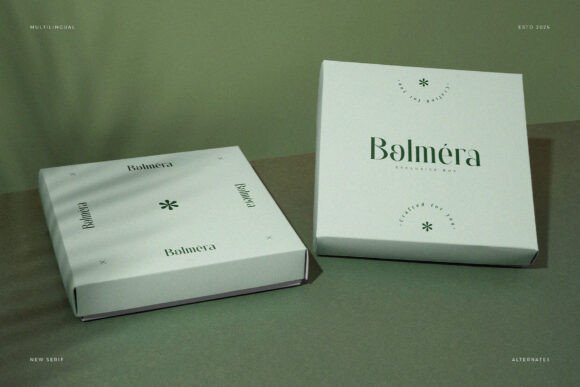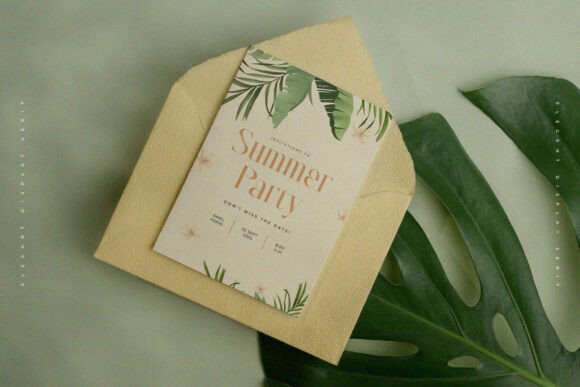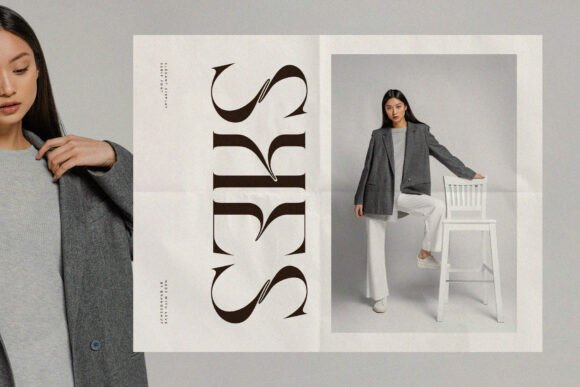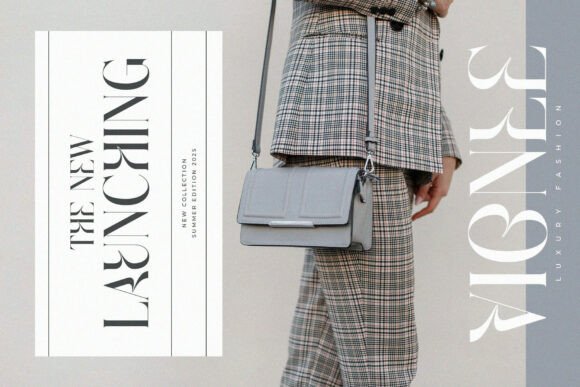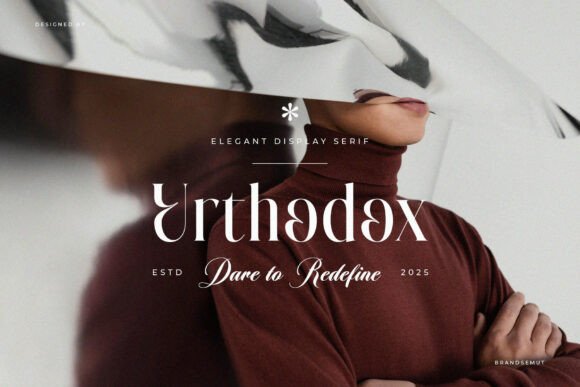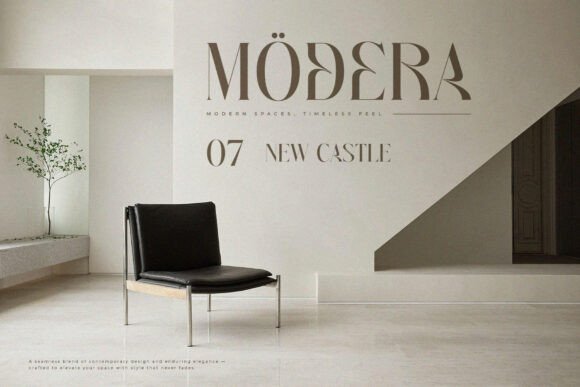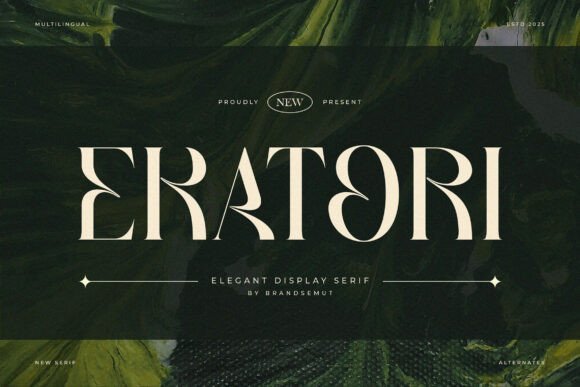
Introducing Ekatori: The Elegant Modern Display Serif Font
Are you a designer or crafter looking for a font that exudes luxury, sophistication, and modernity? Look no further than Ekatori, the elegant modern display serif font that is taking the design world by storm. With its unique alternates, luxurious details, and multilingual support, Ekatori is the perfect choice for a wide range of creative projects.
A Font that Combines Tradition and Innovation
Ekatori is a masterful blend of traditional serif font elements with modern twists and innovative features. Its sophisticated curves and classy uppercase-lowercase combination make it stand out in both print and digital projects. Whether you’re working on branding, high-end packaging, logo design, fashion editorials, wedding invitations, or social media graphics, Ekatori is the perfect font to elevate your creative work.
Unique Alternates and Luxurious Details
One of the standout features of Ekatori is its unique letter alternates. These alternates provide a range of options for designers to add variety and interest to their work. The font’s luxurious details, including its elegant serifs and refined lines, make it perfect for projects that require a high level of sophistication. With Ekatori, you can add a touch of luxury to your designs and take them to the next level.
Multilingual Support and Alternate Glyphs
Ekatori is designed to be versatile and accessible, with multilingual support and alternate glyphs that make it easy to use in a wide range of languages and creative projects. Whether you’re working on a project that requires a specific language or character set, Ekatori has got you covered. The font’s PUA encoding ensures that all special characters and decorative elements are easily accessible without additional software.
Ekatori is a font that is specifically designed with designers and crafters in mind. Its elegant and modern design makes it perfect for a wide range of creative projects, from branding and packaging to fashion editorials and social media graphics. With Ekatori, you can add a touch of sophistication and luxury to your designs and take your creative work to the next level.
Key Features of Ekatori
- Elegant modern display serif font with unique alternates
- Luxurious details and sophisticated curves
- Multilingual support and alternate glyphs
- PUA encoding for easy access to special characters and decorative elements
- Perfect for branding, high-end packaging, logo design, fashion editorials, wedding invitations, and social media graphics
Why Choose Ekatori?
There are many reasons why Ekatori is the perfect choice for designers and crafters. Here are just a few:
- Unique and elegant design: Ekatori’s unique alternates and luxurious details make it stand out from other fonts.
- Versatility: Ekatori is perfect for a wide range of creative projects, from branding and packaging to fashion editorials and social media graphics.
- Multilingual support: Ekatori’s multilingual support makes it easy to use in a wide range of languages and creative projects.
- Easy to use: Ekatori’s PUA encoding ensures that all special characters and decorative elements are easily accessible without additional software.
In conclusion, Ekatori is a font that is sure to impress designers and crafters alike. Its elegant and modern design, luxurious details, and unique alternates make it perfect for a wide range of creative projects. With its multilingual support, alternate glyphs, and PUA encoding, Ekatori is a versatile and accessible font that is easy to use and perfect for adding a touch of luxury to your designs.